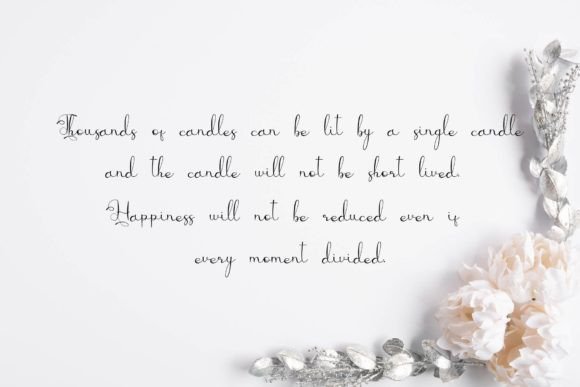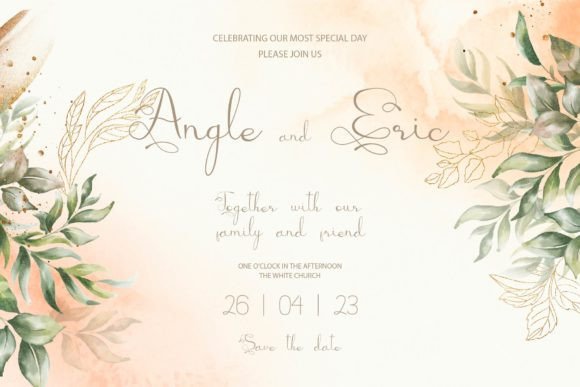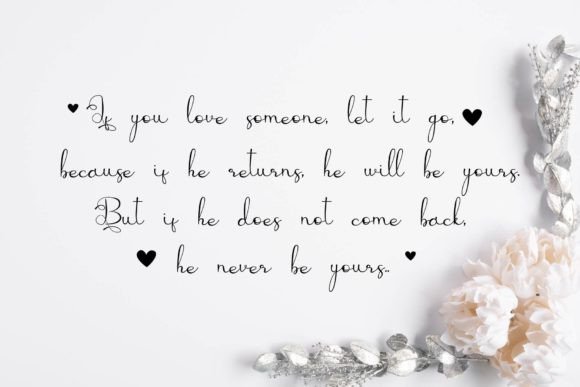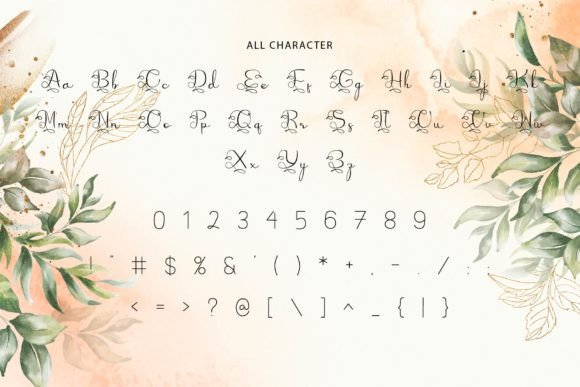
Amanda Font: Elevate Your Designs with Elegance and Sophistication
Are you a designer or crafter looking for a font that exudes elegance and sophistication? Look no further than Amanda Font, a stunning handwritten font that’s perfect for adding a touch of refinement to your designs. In this article, we’ll dive into the features and benefits of Amanda Font, and explore how it can elevate your creative projects.
What is Amanda Font?
Amanda Font is a beautifully crafted handwritten font that’s designed to bring a touch of luxury and sophistication to your designs. With its flowing lines and elegant curves, this font is perfect for creating stunning wedding invitations, thank you cards, quotes, greeting cards, logos, business cards, and more.
Key Features of Amanda Font
- Stylish and Elegant Design: Amanda Font boasts a stylish and incredibly elegant design that’s sure to impress. Its handwritten aesthetic adds a touch of warmth and personality to your designs, making them stand out from the crowd.
- PUA Encoded: This font is PUA (Private Use Area) encoded, which means you can access all of the glyphs and alternates with ease. This feature makes it simple to customize your designs and add unique touches.
- Versatile: Amanda Font is incredibly versatile, making it suitable for a wide range of design projects. Whether you’re creating wedding invitations, business cards, or social media graphics, this font is sure to shine.
Amanda Font is particularly well-suited for wedding and event designs. Its elegant and sophisticated aesthetic makes it perfect for creating stunning wedding invitations, save-the-date cards, and thank you cards. The font’s flowing lines and curves also make it ideal for designing beautiful quotes, greeting cards, and other stationery items.
So, what are the benefits of using Amanda Font for designers and crafters? Here are just a few:
- Customizable: With its PUA encoding, Amanda Font offers a high level of customization. You can easily access alternative glyphs and characters to add a unique touch to your designs.
Tips for Using Amanda Font
Here are a few tips for getting the most out of Amanda Font:
- Experiment with Different Sizes and Colors: Amanda Font looks stunning in a variety of sizes and colors. Experiment with different combinations to find the perfect look for your design.
- Pair with Other Fonts: Amanda Font pairs beautifully with other fonts. Try combining it with a sans-serif font for a striking contrast.
- Use for Branding and Marketing Materials: Amanda Font is perfect for creating branding and marketing materials, such as business cards, brochures, and social media graphics.
In conclusion, Amanda Font is a stunning handwritten font that’s perfect for designers and crafters looking to add a touch of elegance and sophistication to their designs. With its PUA encoding, stylish design, and versatility, this font is sure to become a go-to choice for a wide range of creative projects. Whether you’re designing wedding invitations, business cards, or social media graphics, Amanda Font is sure to impress.